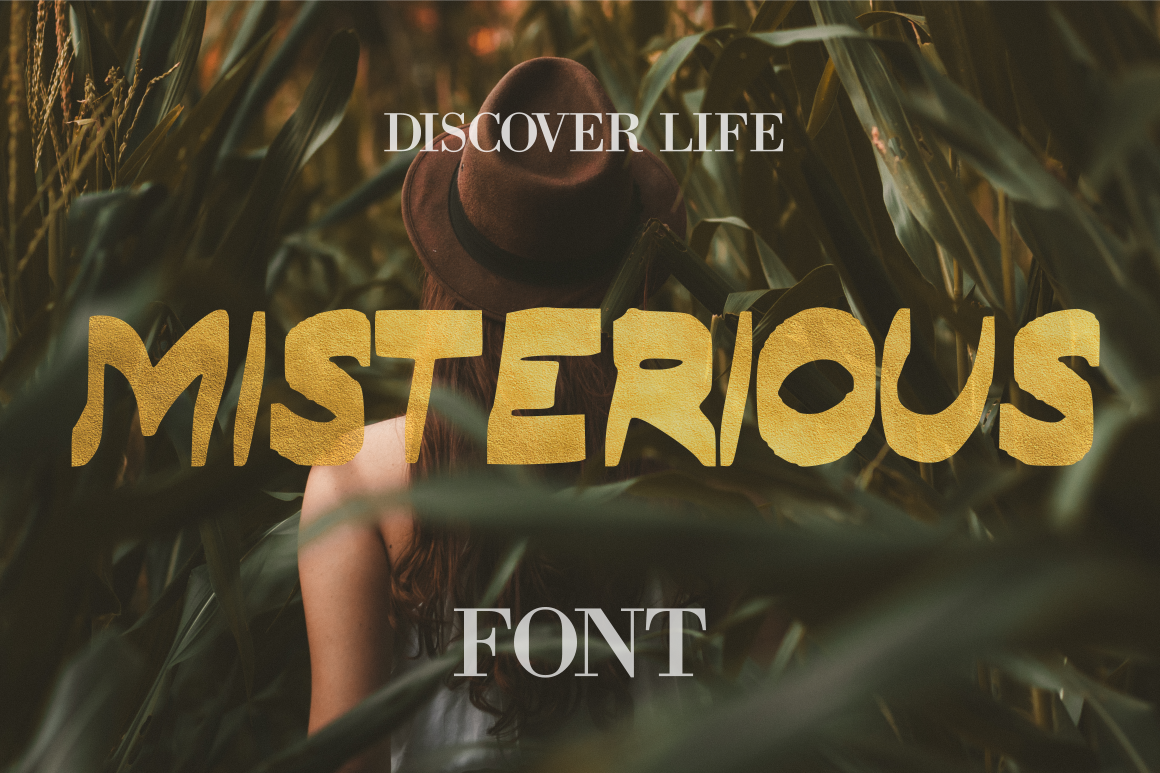
Misterious (Mioow) Font
Description: Here we are with a fresh new Misterious (Mioow) Font. Created with influences, passion, time and creativity. Misterious (Mioow) Font is an magic font for any kind of design work. Use it for invitations, logos, greeting cards, t-shirts, artist names, business main logo or any suitable design that you want to create. Have fun and explore your creativity in all areas of creation.
- uppercase
- lowercase
- numeral
- punctuation
- bonus